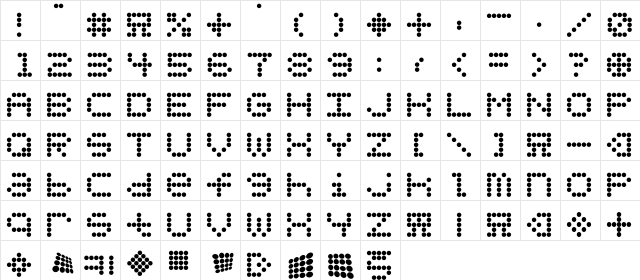
PerforationStrip Regular
Design Context for PerforationStrip Typeface
PerforationStrip takes a measured approach to typography — its balanced proportions and neutral character make it a reliable workhorse for both digital and print work.